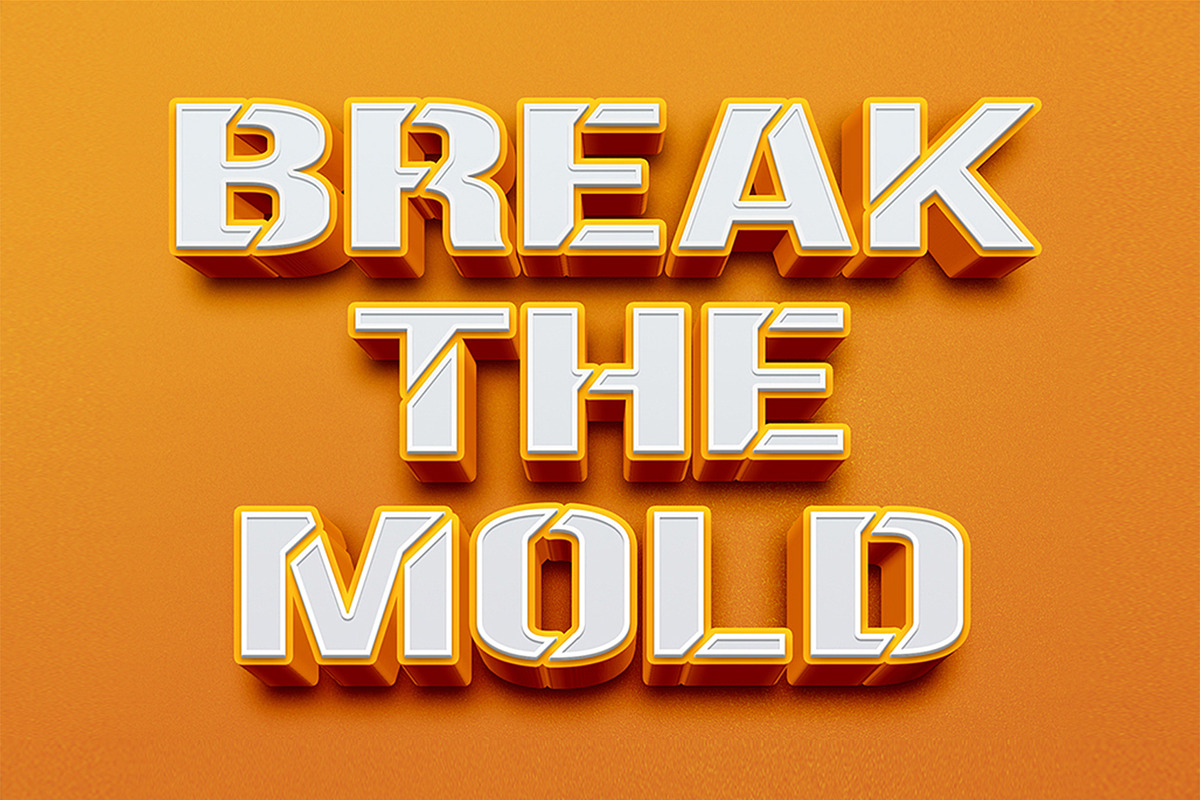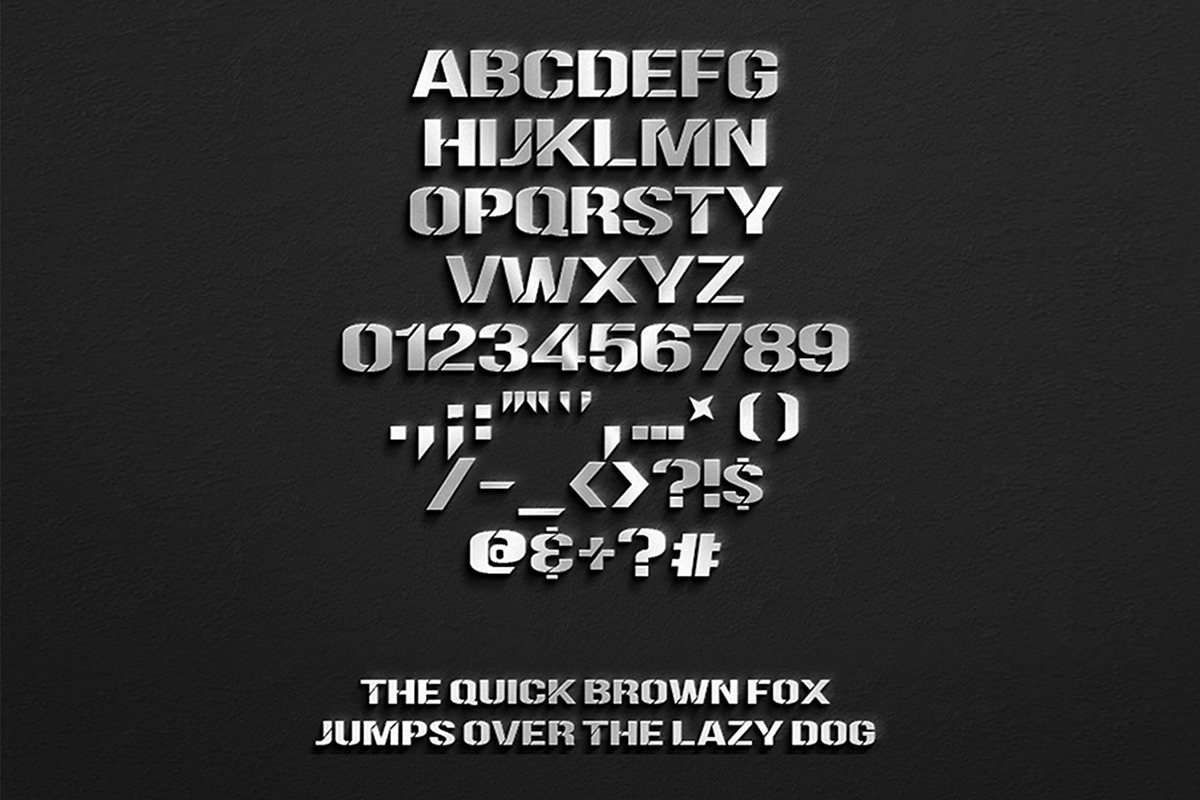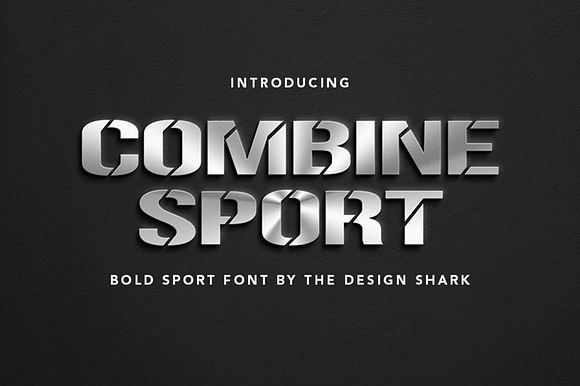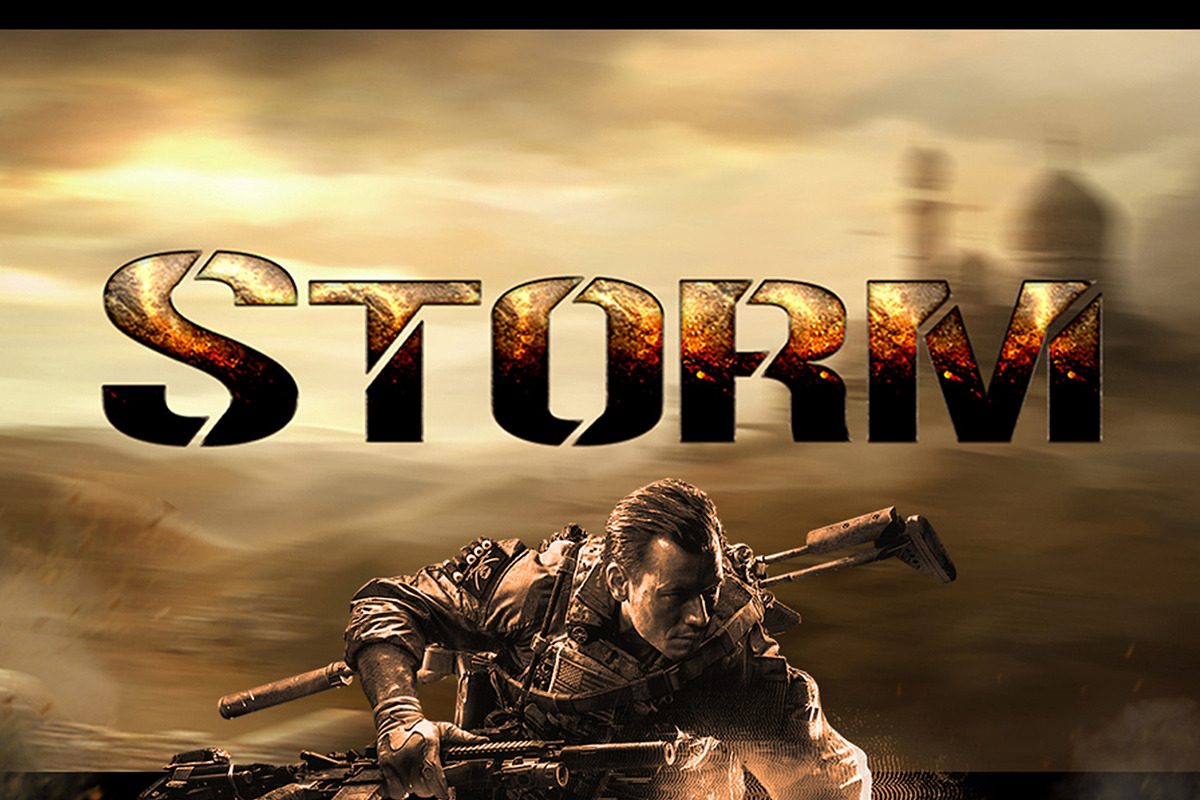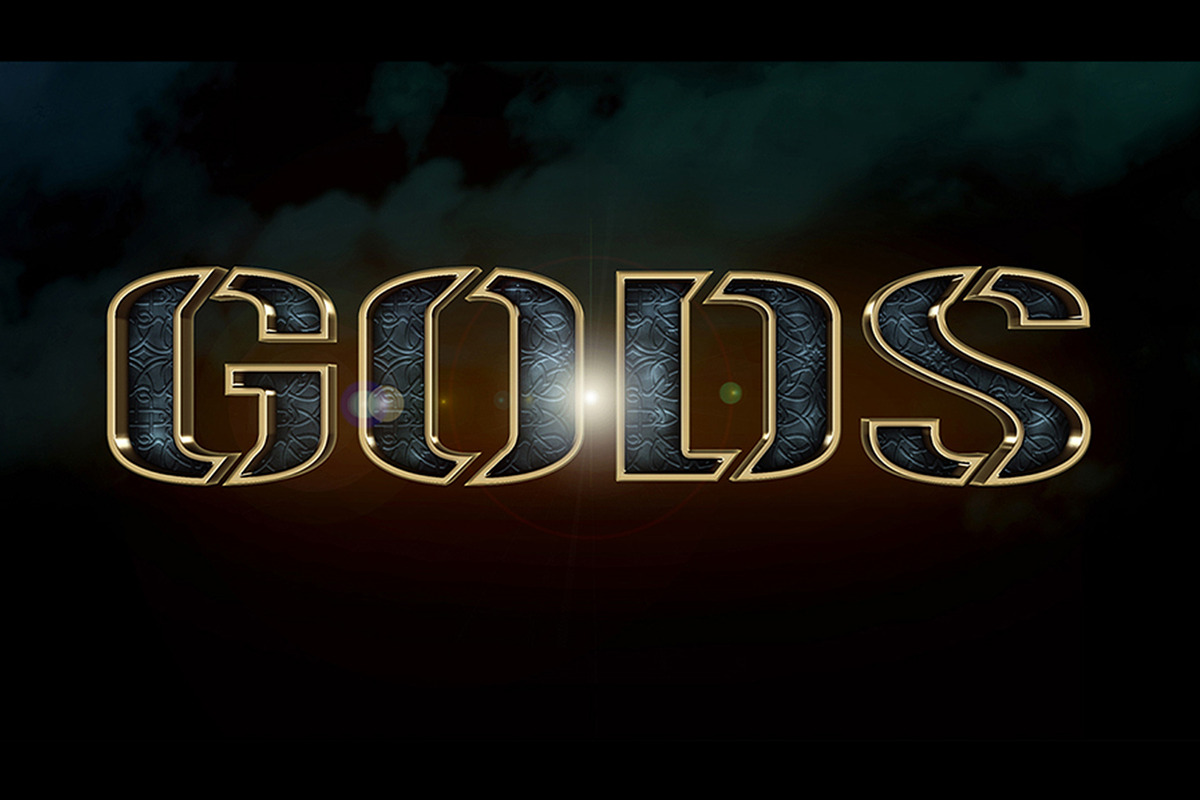
Combine Sport Typeface
Combine Sport is a bold sport font.
Combine Sport font is a bold all caps typeface. A strong and edgy font, Combine Sport is designed to work well at medium-to-large size, ideal for posters/flyers, headlines, movies, and logotypes.
Combine Sport Typeface by thedesignshark fits naturally into Branding, posters, packaging, typography.